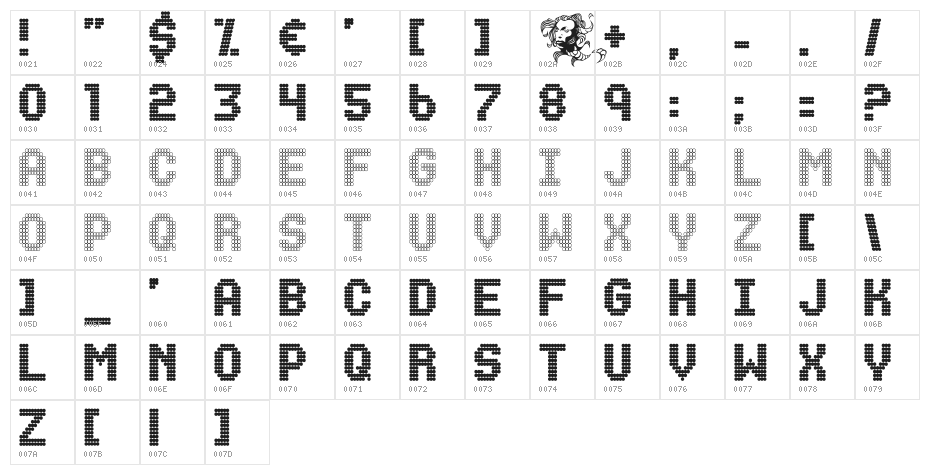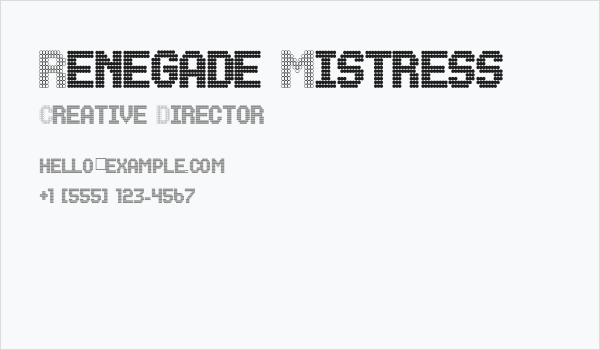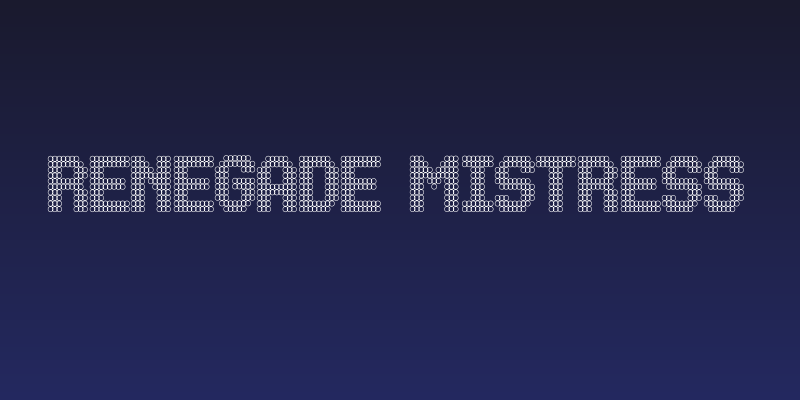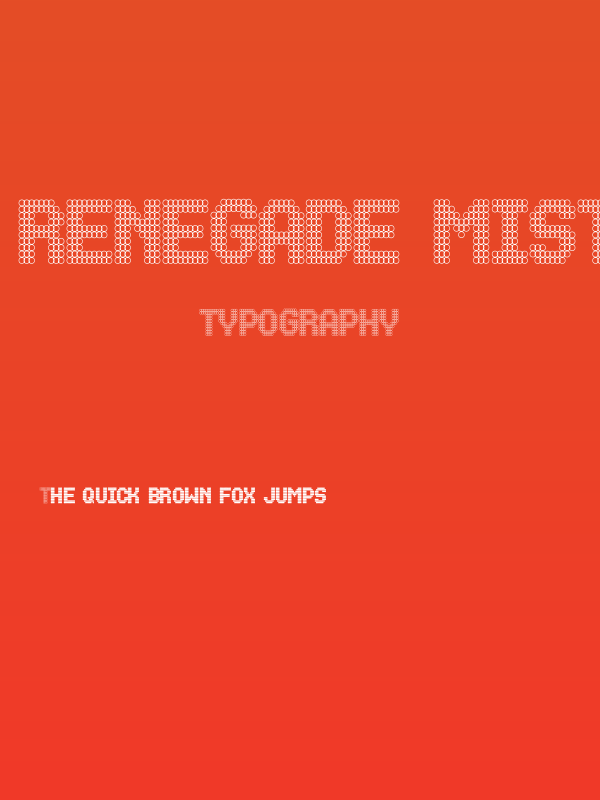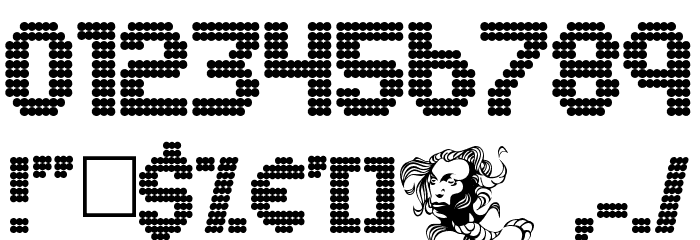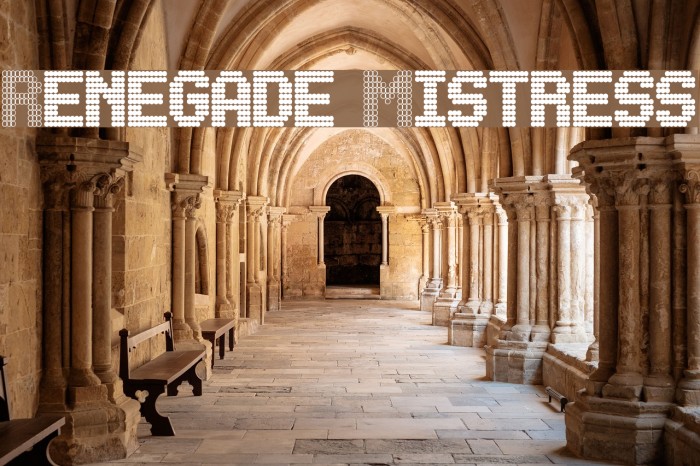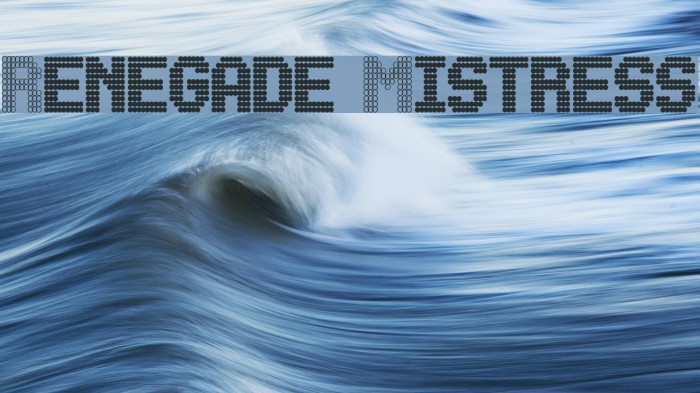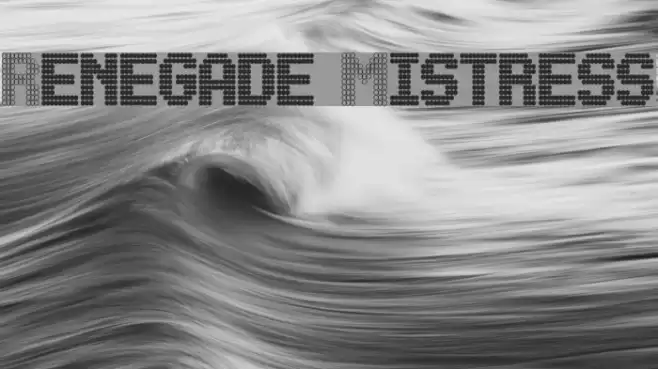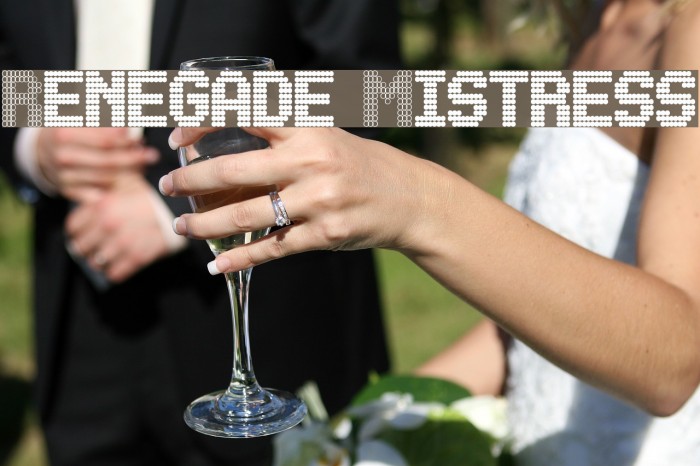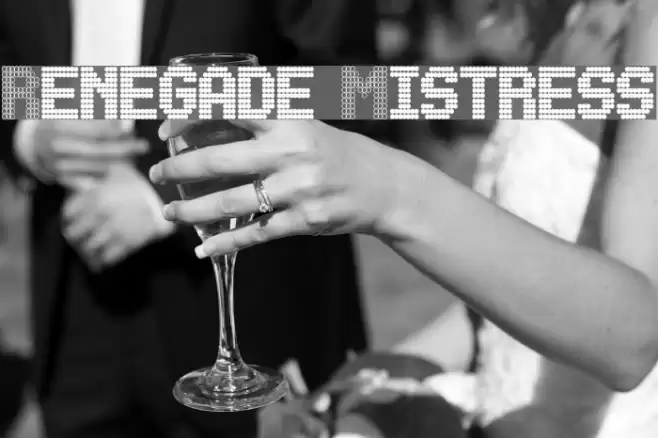
Renegade Mistress Font
Renegade Mistress Description
This font features a unique design composed of small circular dots arranged to form each character. The uppercase and lowercase letters, as well as numbers and special characters, are constructed with a consistent pattern of dots, creating a cohesive and visually striking appearance. The font is bold and decorative, with a playful yet structured style that stands out in any design. Its geometric nature gives it a modern and digital feel, reminiscent of LED displays or pixel art, making it suitable for projects that require a futuristic or tech-inspired aesthetic.
| Proposed Projects | Ideal for digital displays, tech-themed designs, event posters, and modern branding projects. |